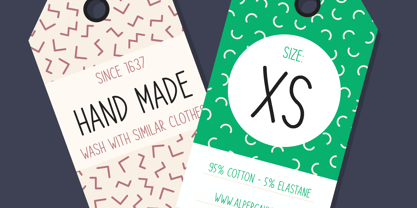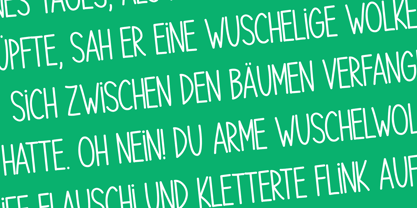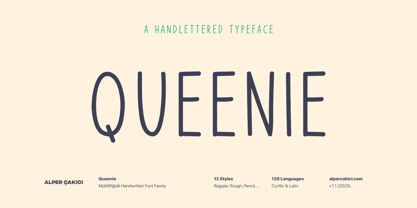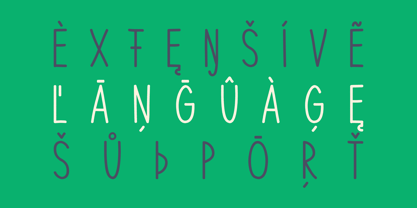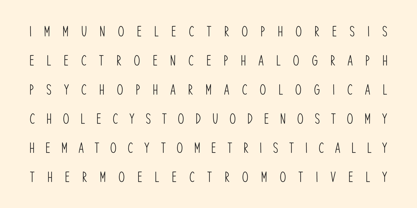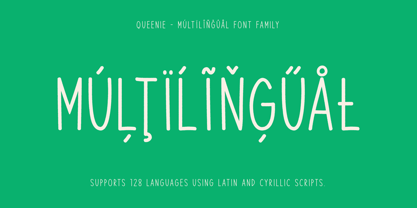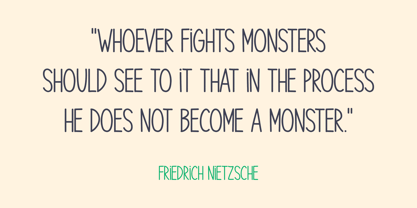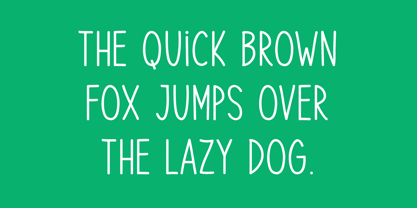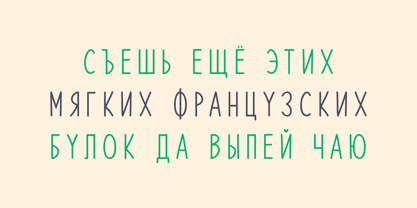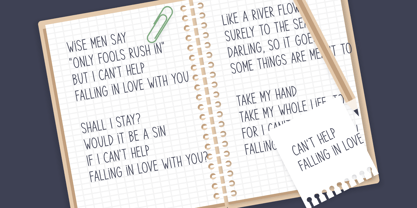
Queenie
The Queenie Font Family was designed by Alper Çakıcı and published by AlperCakici. Queenie contains 12 styles and family package options. More about this family
Queenie is a charming handwritten typeface family designed to bring personality, warmth, and playful character to every creative project. With smooth curves, lively strokes, and an authentic hand-drawn feel, Queenie delivers a friendly and expressive voice without sacrificing clarity or versatility. The family includes 12 thoughtfully crafted instances—Regular, Italic, Rounded, Rough, and Cutout styles with matching italics—ranging from clean and cozy to highly expressive and textured. This variety gives designers exceptional flexibility for branding, packaging, editorial headlines, children’s designs, and vibrant social media content. Supporting 128 languages across Latin and Cyrillic, Queenie is ready for global and multicultural projects. Its approachable personality and genuine handwritten charm make it an ideal choice for playful, uplifting, and imaginative visual identities. If your work calls for charm, character, and a dash of delightful playfulness, Queenie is ready to lift your designs into orbit.